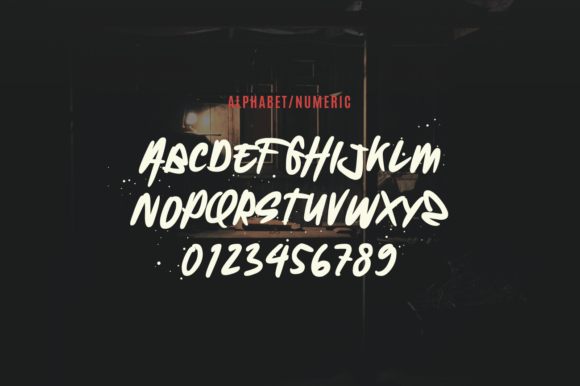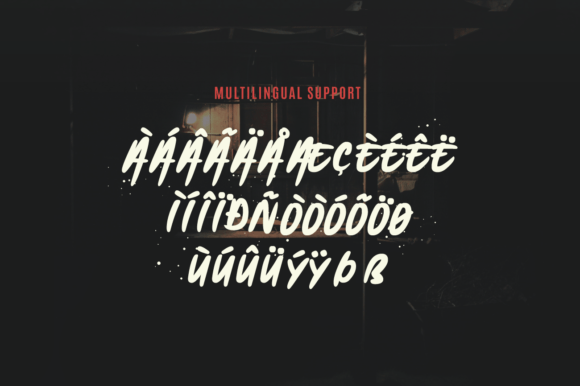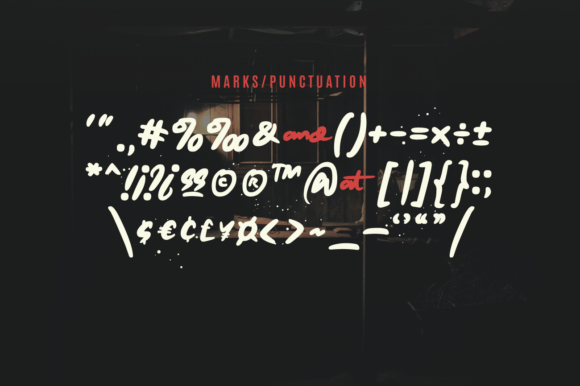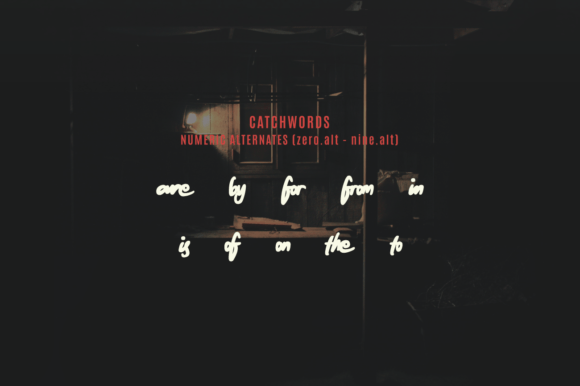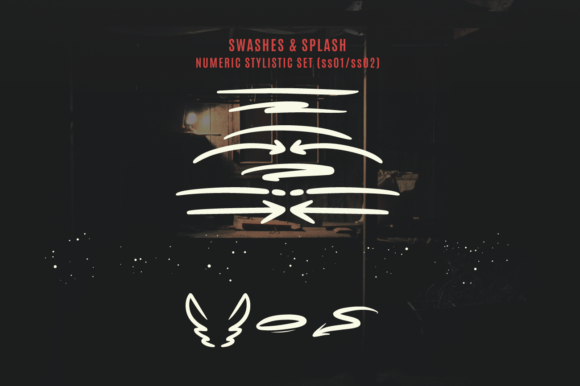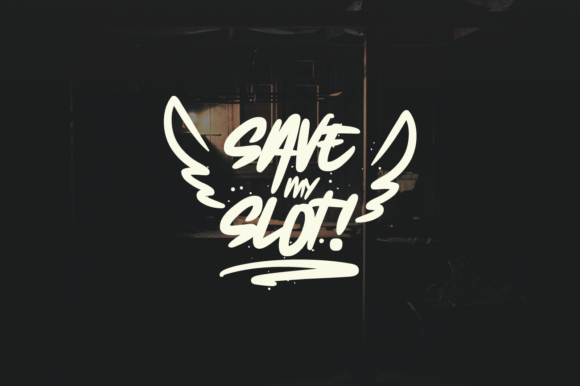
Introduction to El Viernes Font
Have you ever been working on a creative project, staring at a blank canvas or screen, and suddenly, the perfect font pops into your head? That’s exactly what happened to me when I stumbled upon the beautiful El Viernes Font. Its elegant and well-balanced characters immediately caught my attention, and I knew I had to share it with fellow designers.
As a valuable design resource, El Viernes Font is perfect for designers looking to add a touch of sophistication to their work. With its high-quality display, it’s ideal for projects that require a professional and polished look. Whether you’re working on a branding project, creating a stunning poster, or designing a website, El Viernes Font is sure to elevate your design to the next level.
Key Features of El Viernes Font
- High-quality design resource ideal for creative projects, including logos, branding, and packaging.
- Features a transparent background, making it versatile for use on any design surface.
- Designed with a modern aesthetic, making it suitable for a variety of design applications.
- Available in a range of sizes, from 12pt to 72pt, with a resolution of 300 DPI.
- Perfect for designers looking for a unique and creative font to elevate their design project.
Honest Review: El Viernes Font
I recently stumbled upon the El Viernes Font, and I have to say it’s been a game-changer for my design projects. The font is free to download, which is a major plus for designers on a budget. The quality is top-notch, with crisp, clear lines and a beautiful, high-quality feel that elevates any design to the next level.
- ✨ The font’s modern aesthetic makes it perfect for creative projects, from brochures to websites.
- ✨ The transparent background allows for seamless integration with any design element, giving you complete creative control.
However, I do have a few reservations:
- ⚠️ The font’s versatility can also be a limitation, as it may not be suitable for all design projects (e.g. children’s books or formal business documents).
- ⚠️ The font’s modern style may not be to everyone’s taste, so it’s essential to consider your target audience before using it.
Overall, I’m thoroughly impressed with the El Viernes Font. It’s a valuable addition to any designer’s toolkit, and its high quality and versatility make it an excellent choice for creative projects. With its transparent background and free download option, it’s a design resource that’s hard to resist.
El Viernes Font Overview
El Viernes Font is a high-quality design resource ideal for creative projects. It features a transparent background and is available for free download. This versatile font can be used in various applications to add a unique touch to your work.
Tips for Getting the Most Out of El Viernes Font
1. Experiment with different font sizes and colors to create visual interest.
2. Combine El Viernes Font with other design elements to create a unique look.
3. Use El Viernes Font in creative projects such as logos, posters, and social media graphics.
Common Use Cases for El Viernes Font
1. Logos and branding materials.
2. Posters and flyers.
3. Social media graphics and ads
Can I use El Viernes Font for a transparent background?
Yes, El Viernes Font supports transparent backgrounds, making it ideal for design projects that require a high level of customization. You can use it for logos, icons, and other design elements that require a transparent background.